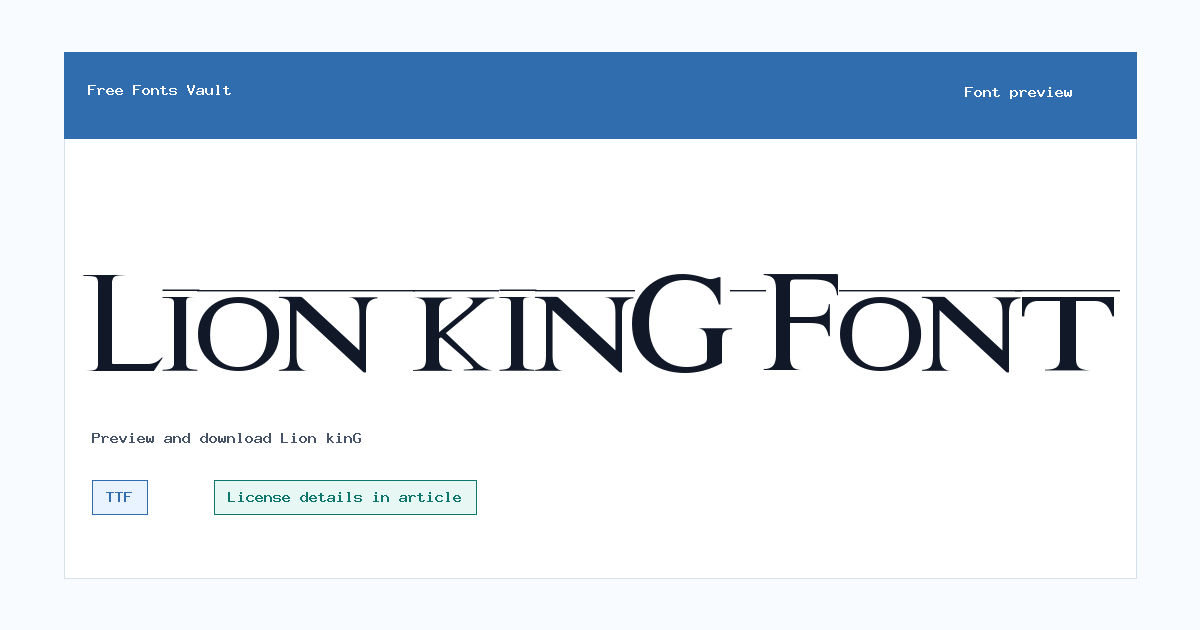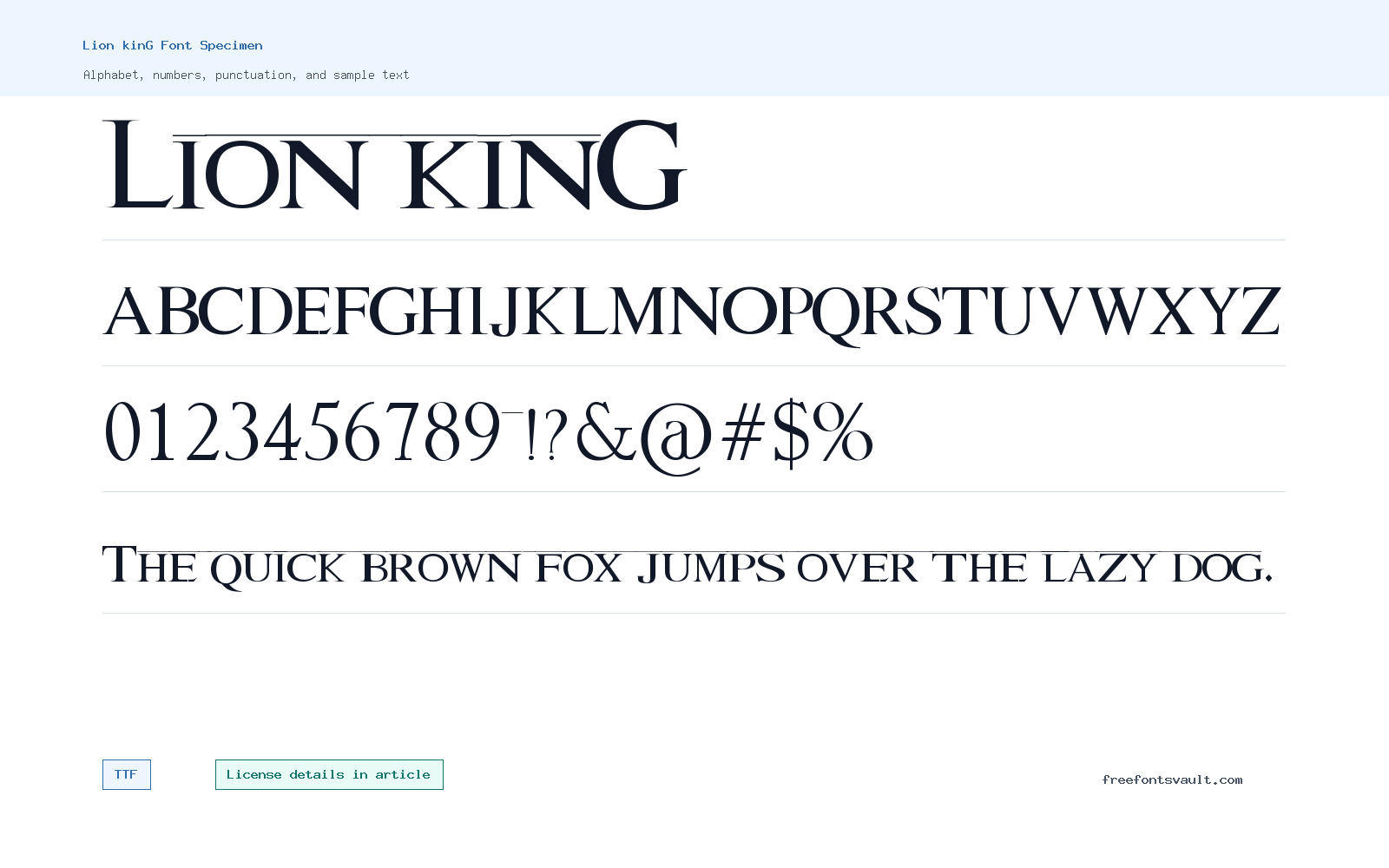
Lion kinG
Lion kinG font.
Lion kinG is a decorative serif display font with sharp contrast and a dramatic title style. It is best used for short words and large headings where the letter shapes can be seen clearly.
This font is better for display work than for paragraphs. It can suit posters, covers, invitation headings, themed labels, and personal artwork where the typography is part of the visual mood. For body copy, menus, or captions, pair it with a quieter serif or sans serif so readers do not have to work through decorative shapes in every line.
- Decorative serif display look with high contrast and sharp details.
- Best for large text, short names, posters, covers, and title artwork.
- Needs spacing checks, especially for all-caps words and longer phrases.
- Works best as an accent beside a simpler companion font.
- Large titles, posters, covers, themed graphics, and decorative headings.
- Short names, invitations, labels, social images, and personal artwork.
- Display mockups where a serif with stronger character is needed.
- Testing uppercase words, numbers, and punctuation in a visual preview.
- Pairing with readable support fonts for descriptions and paragraph text.
What type of font is Lion kinG?
Lion kinG is a decorative serif display font. It is best for titles and short phrases rather than long reading text.
Is Lion kinG good for body text?
No. Use it for large headings or short display text, and choose a simpler font for paragraphs.